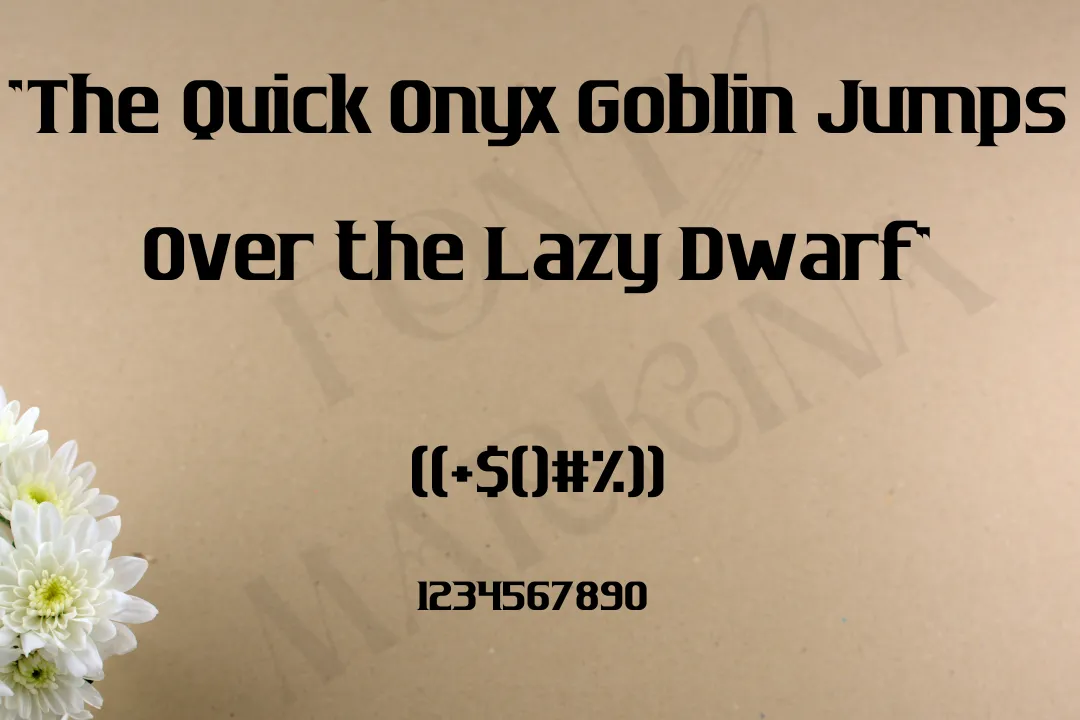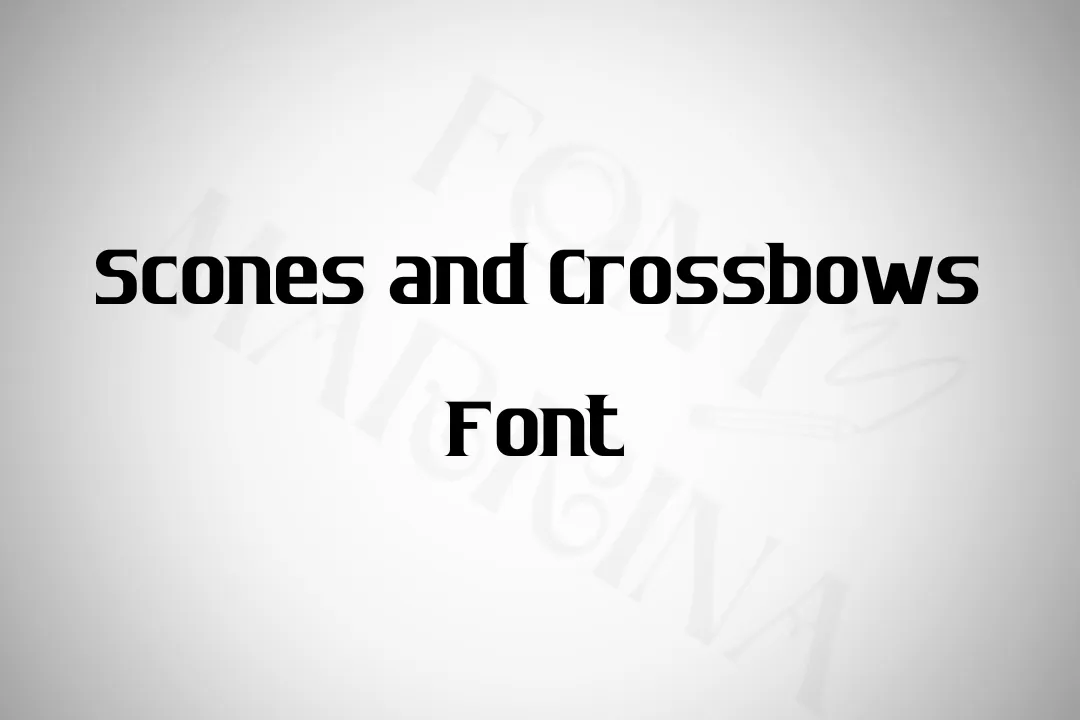
Scones and Crossbows font is a unique texture designed by Chequered Ink, a UK-based type foundry that specializes in creating playful and quirky fonts. This is a decorative font that is inspired by medieval and Gothic styles. The letterforms are bold and angular, with sharp edges and intricate details.
This typography possesses uppercase letters, lowercase letters, numbers, and basic punctuation marks. This stunning typography also includes some special characters, such as decorative flourishes and a stylized ampersand. Adobe Hebrew font has the same styles and its alternative.
The family comes in two variations regular and italic. The regular version has a more traditional look, while the italic version has a more dramatic slant and flowing curves. You will copy and paste your simple text into its online text generator tool and achieve colorful graphic designs.
Usage of Scones and Crossbows
This is a decorative font that can be used for a combination of design projects, particularly those that require a medieval or Gothic theme. The unique and distinctive style of Scones and Crossbows font can help create memorable and eye-catching logos or branding materials, particularly for businesses or organizations that want to convey a sense of history or tradition.
The bold, angular letterforms of Scones and Crossbows make it ideal for posters, flyers, and other promotional materials for events such as medieval fairs, Renaissance festivals, or gothic concerts.
The decorative flourishes and ornate details in the font can be used to add an extra touch of elegance and sophistication to product packaging, particularly for artisanal or handmade products. Here, for more classic results you can also make the pairing of this family with Chanticleer Roman NF font.
Scones and Crossbows typeface can be used for book covers, particularly for historical or fantasy novels that require a medieval or Gothic aesthetic. The bold, easy-to-read letterforms of this typography can be used for signs, particularly for businesses or organizations that want to convey a sense of history or tradition, such as museums or historical sites.
Scones and Crossbows Font View
| Name | Scones and Crossbows Font |
| Designer | Chequered Ink |
| Style | Serif |
Similars to Scones and Crossbows Font
- Trajan Font: Trajan is a classic serif typeface inspired by ancient Roman inscriptions. It has a bold, monumental look with sharp edges and clean lines that share some similarities with Scones and Crossbows.
- Garamond Font: Garamond is a timeless serif typeface that has been popular for centuries. It has a graceful and elegant look with a classic, old-world feel that can evoke a similar atmosphere as Scones and Crossbows.
- Baskerville Font: Baskerville is another classic serif typeface that has a refined and elegant look. It has sharp edges, thick and thin strokes, and a strong vertical emphasis that can make it feel similar to Scones and Crossbows.
- Caslon Font: Caslon is a versatile serif typeface that has a classic and traditional look. It has sharp serifs and clean lines that can evoke a similar feel as Scones and Crossbows, particularly in its bold or black weights.
- Sabon Font: Sabon is a serif typeface that has a classic, elegant style with sharp serifs and clean lines. It has a strong vertical emphasis that can make it feel similar to Scones and Crossbows.
What type of font is Scones and Crossbows Font?
It is a decorative font that is inspired by medieval and Gothic styles. It has bold, angular letterforms with sharp edges and intricate details.
Is there any similar font to Scones and Crossbows Font?
Adobe Caslon font is alternative to this texture.